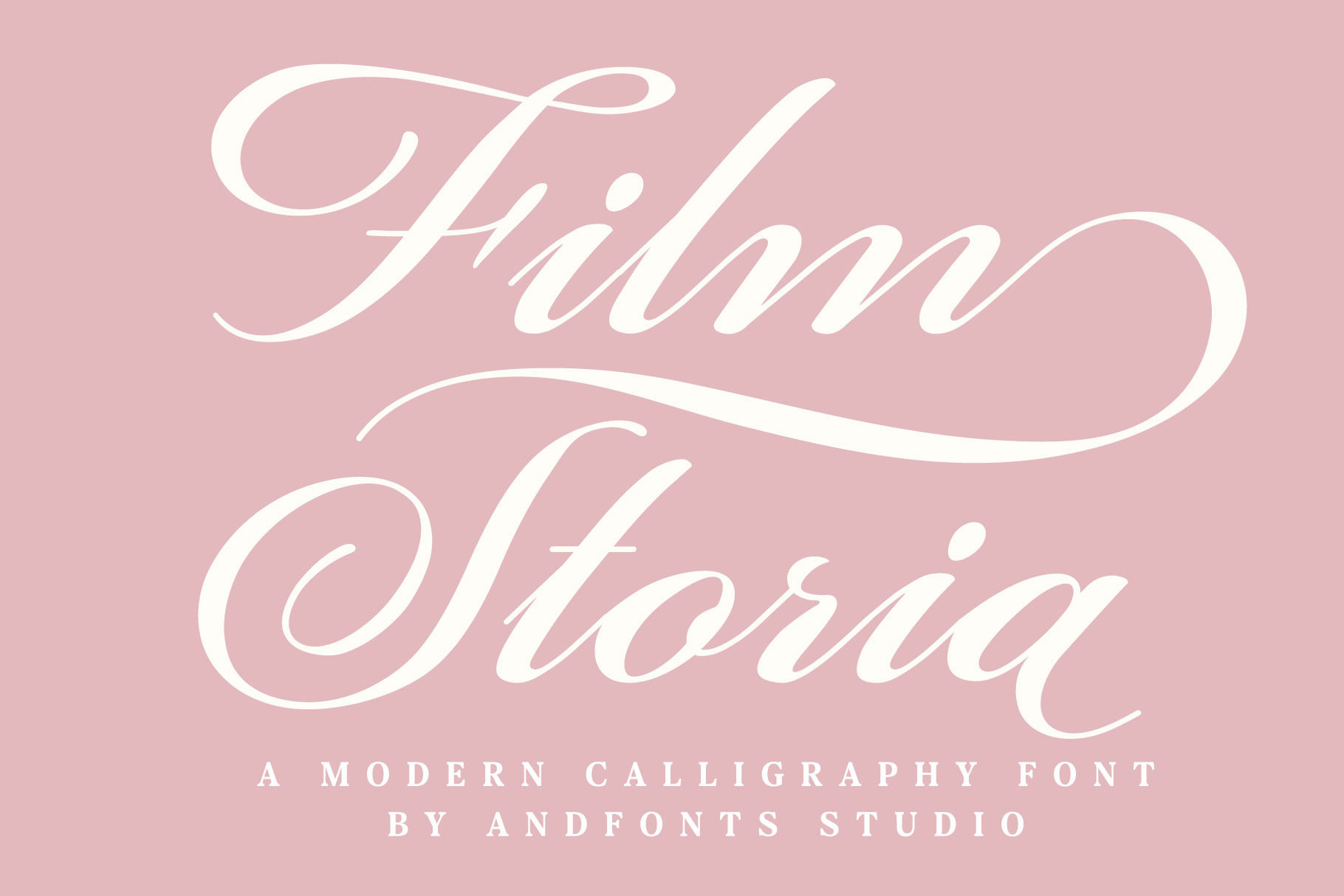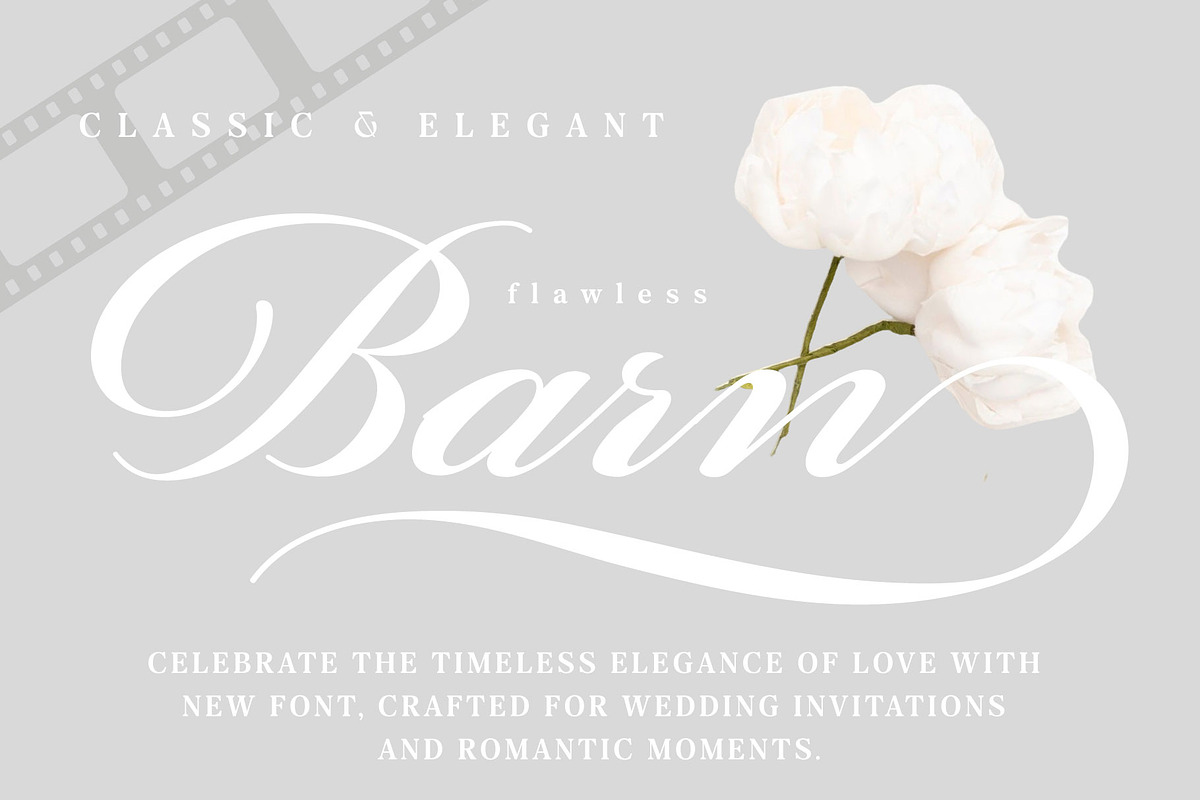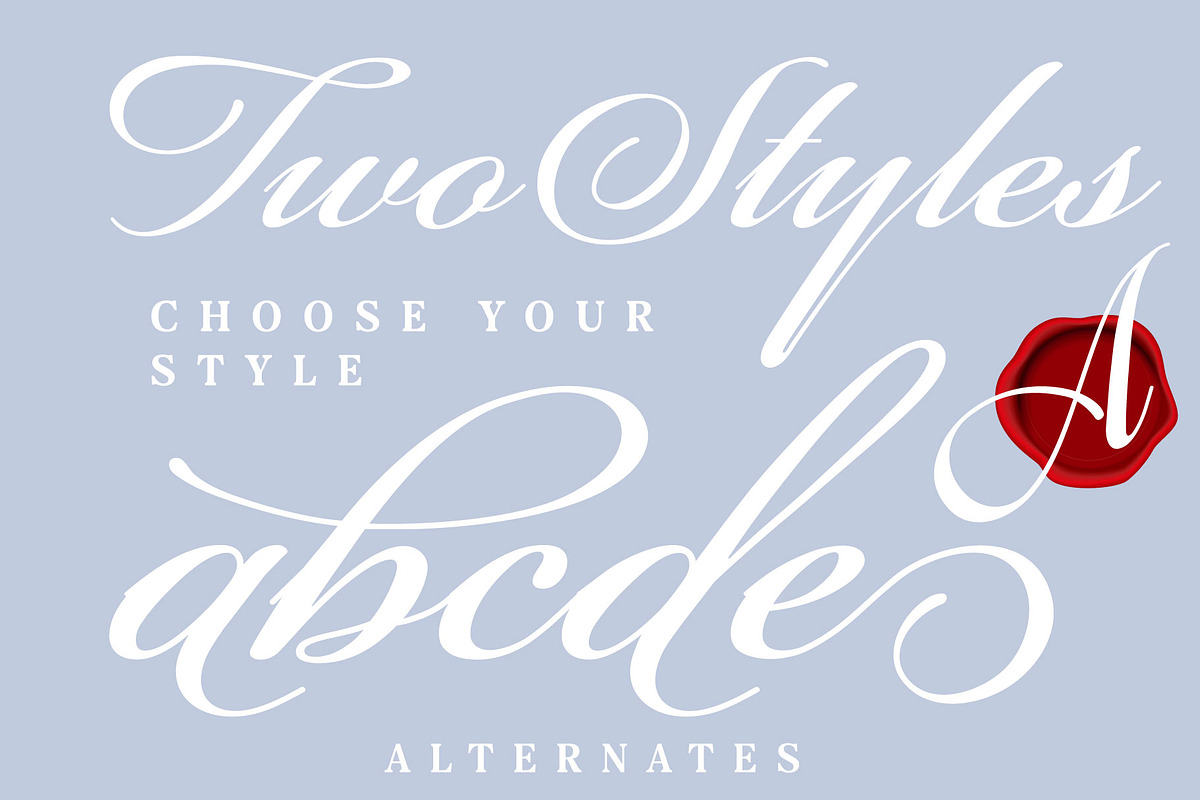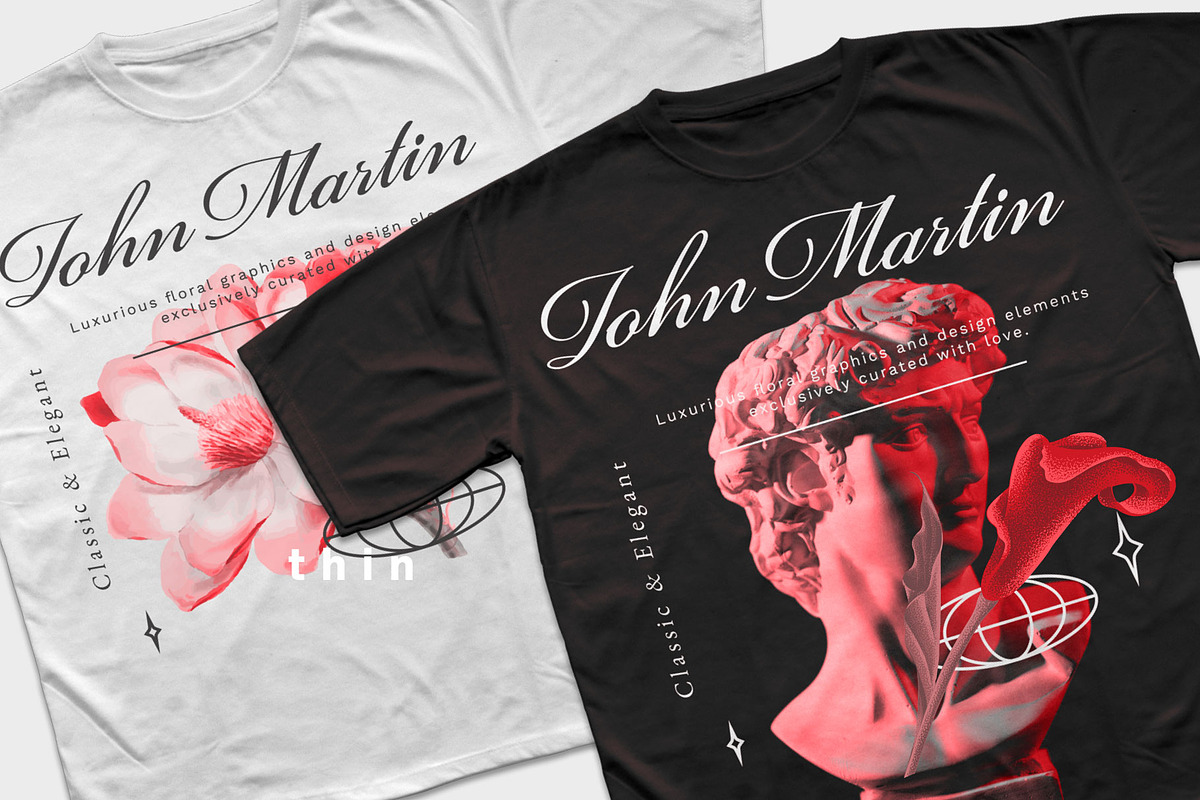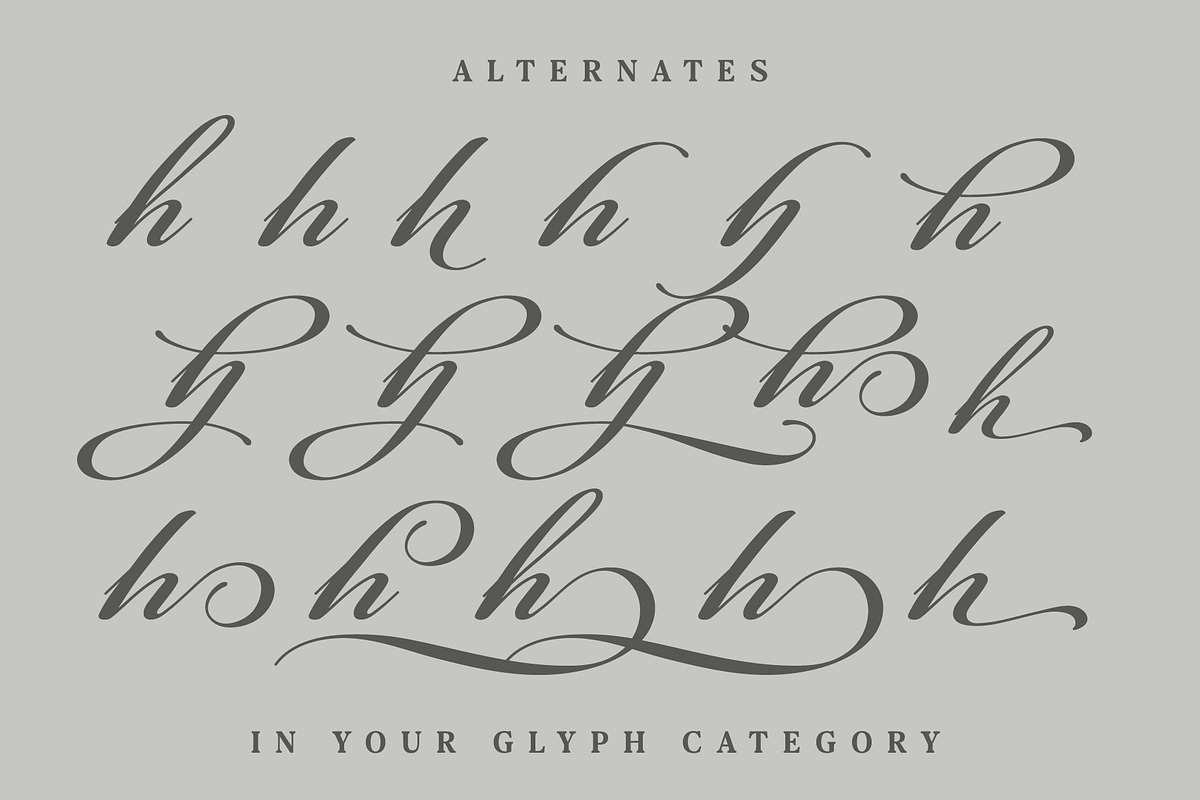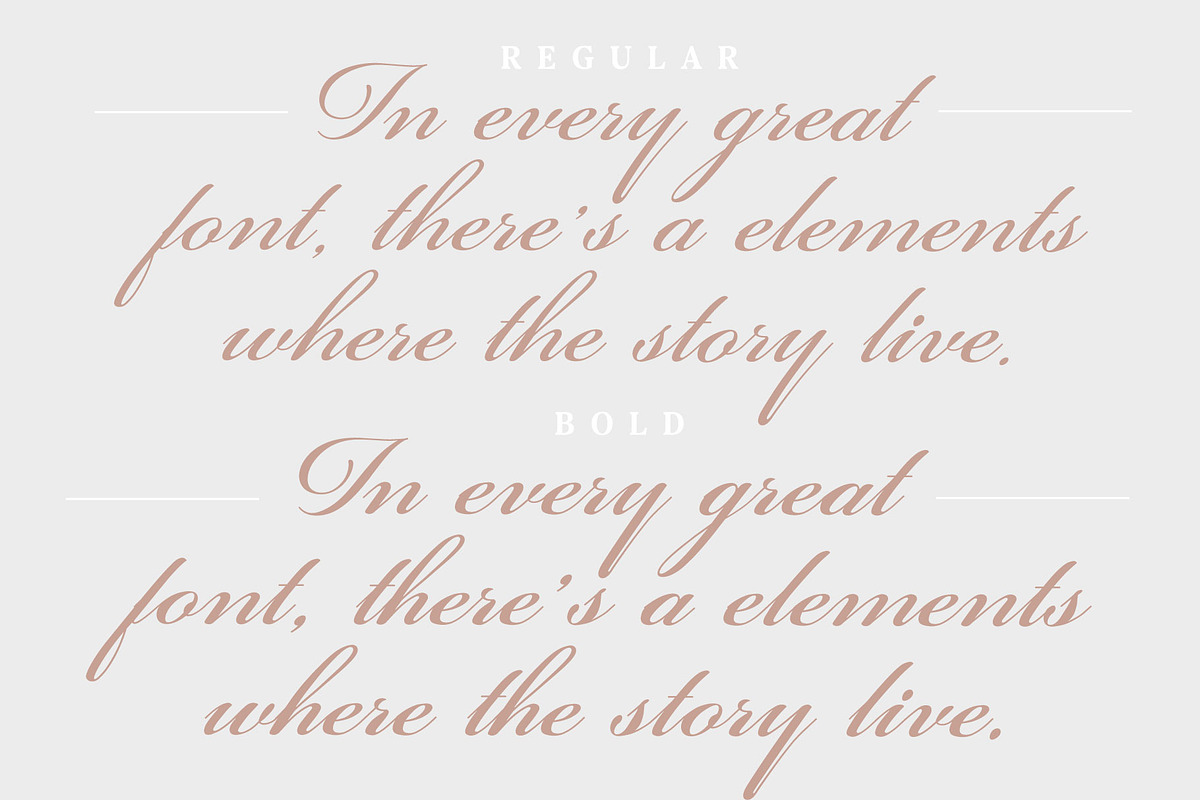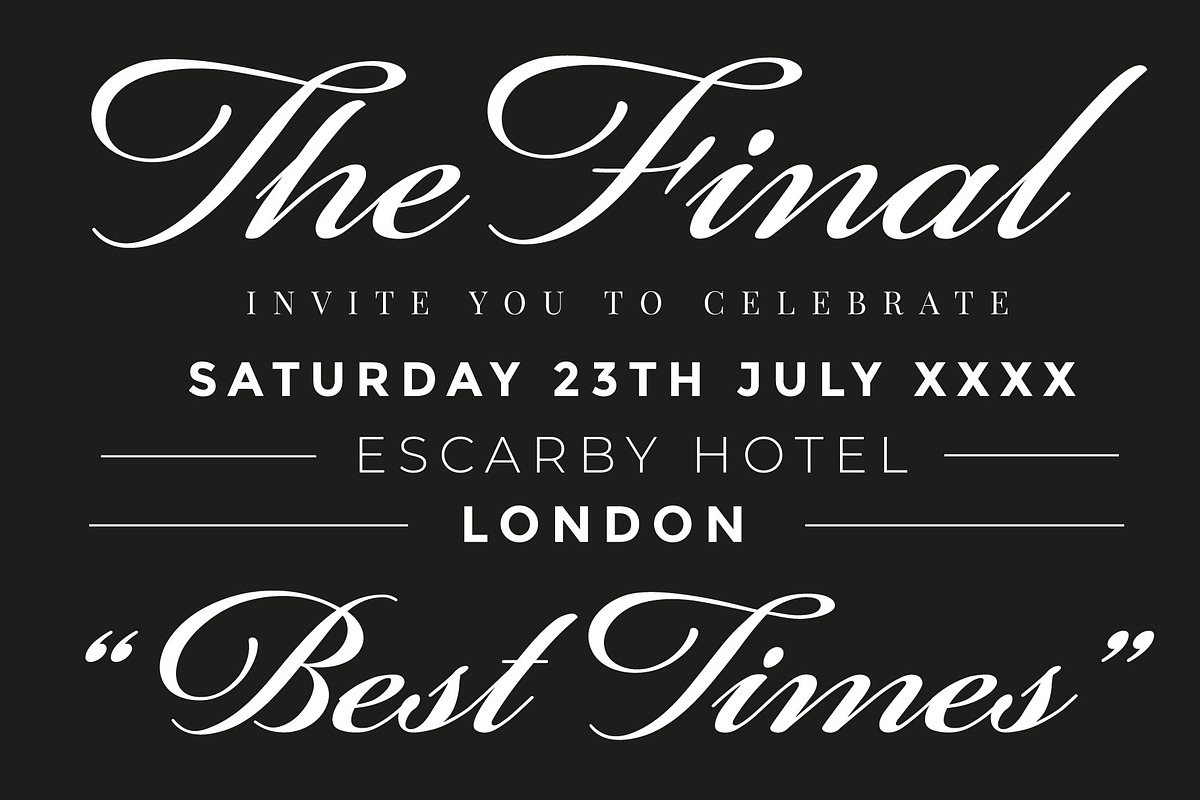
Film Storia, Calligraphy Font
Film Storia is the perfect choice for projects needing a stylish and expressive typeface. Combining classic calligraphy with modern touches, it’s ideal for headlines, logos, and festive designs. Its elegant lines suit themes like American heritage, Broadway, and wine culture, while adding an artistic flair to Christmas greetings or brand identities.